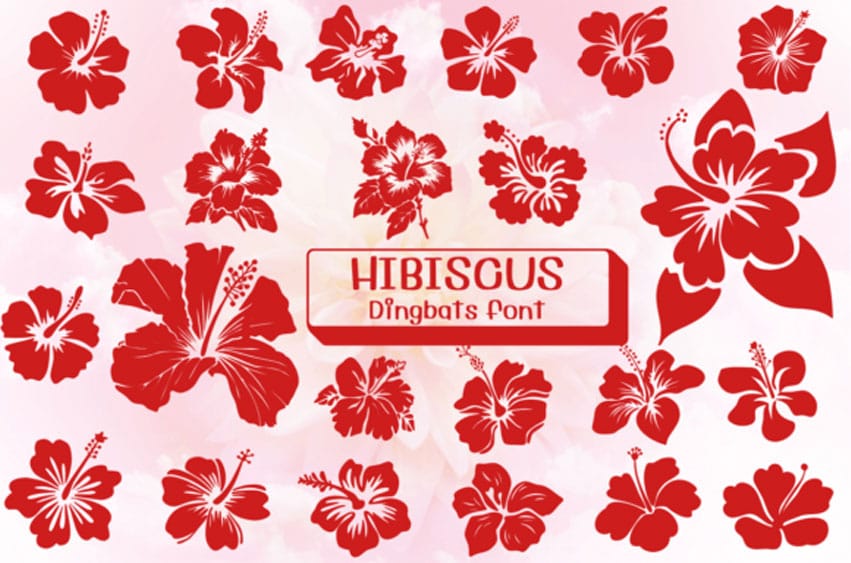
Hibiscus Dingbat Font is a playful dingbat font featuring beautiful hibiscus flower designs.
Each character is a unique floral shape, perfect for adding a tropical touch to your projects like invitations, logos, or crafts.